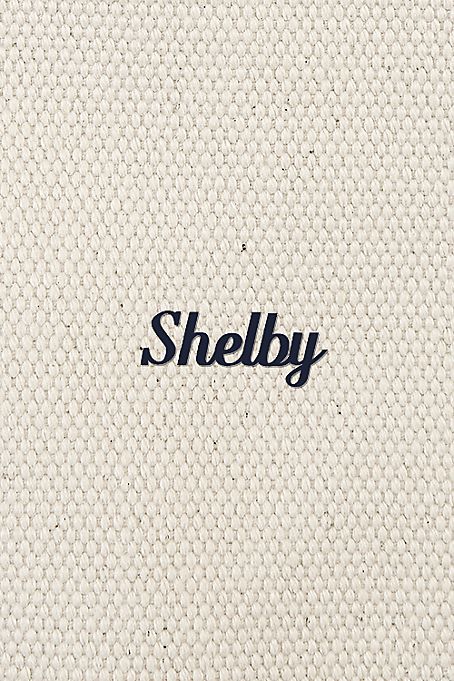
Called Mock Meister in embroidery program. Anyone seen anything close in a downloadable font?
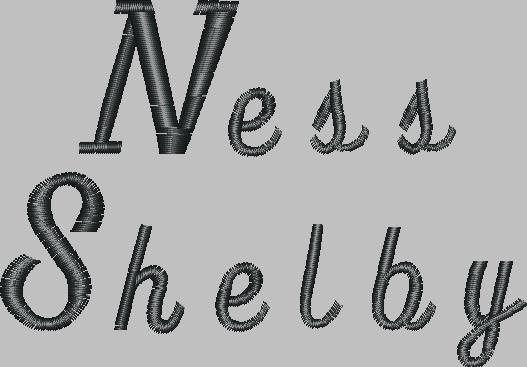
“Fourth Medium” by Jason Vandenberg is very close
Agreed, but the one I’m looking for has slight, slanted, serifed, capital letters. Think I’ll just have to manually replace the capital letters?